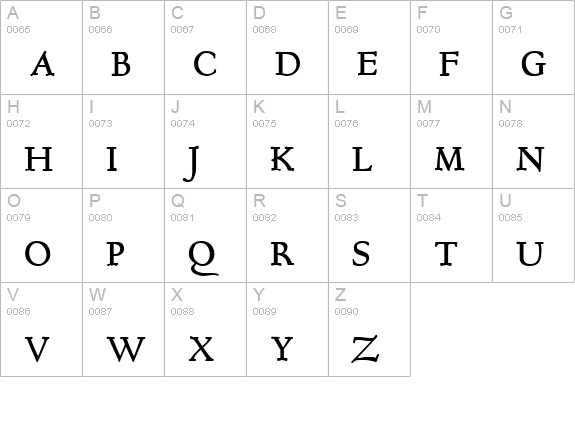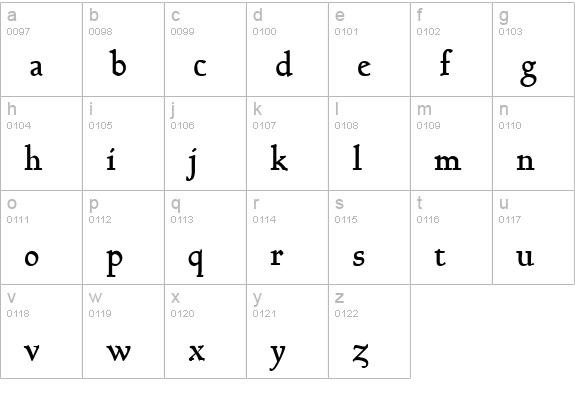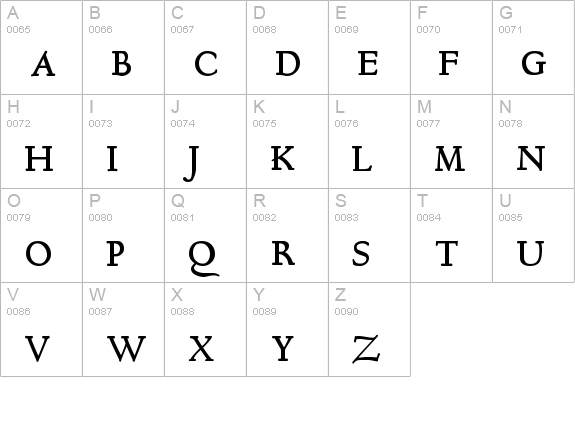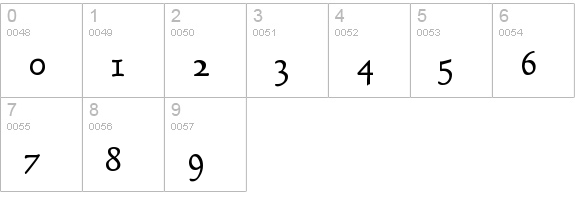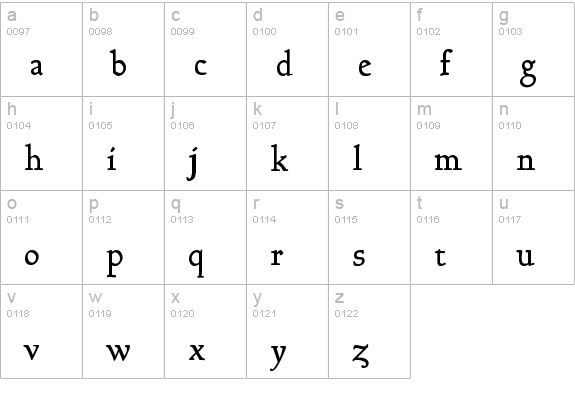
GoundyHundred Bold is a strong, high-contrast variant in the GoundyHundred typeface family \xE2\x80\x94 well suited to headlines, attention-grabbing titles, and strong calls-to-action.
GoundyHundred Bold font is a striking and versatile typeface that exudes confidence and modernity. With its bold and impactful design, this font is perfect for making a statement in any design project. The strong lines and clean curves of GoundyHundred Bold make it ideal for headlines, titles, and branding materials. What sets GoundyHundred Bold apart is not just its boldness, but also its versatility. Whether you're designing a poster, logo, website, or any other creative project, this font will help you stand out and make a lasting impression. The best part? GoundyHundred Bold font is available for free download at FontsMarket.com. So go ahead and elevate your designs with this eye-catching and modern typeface today!